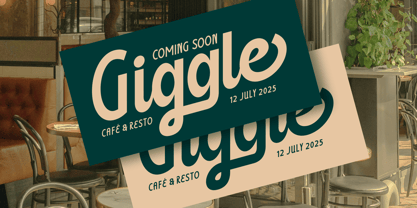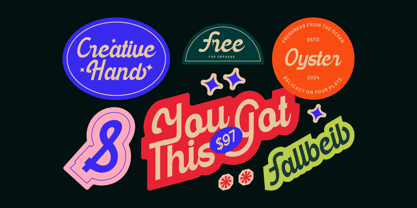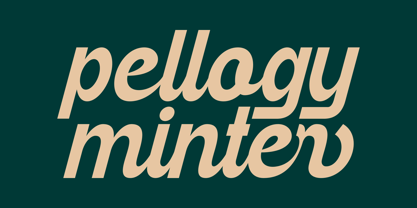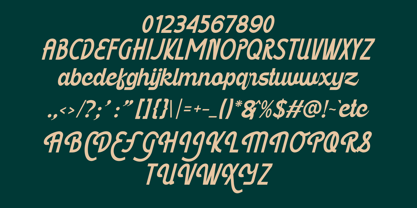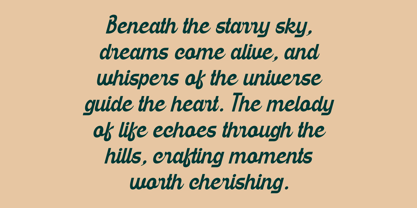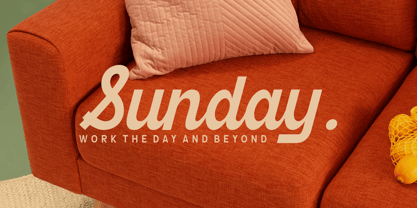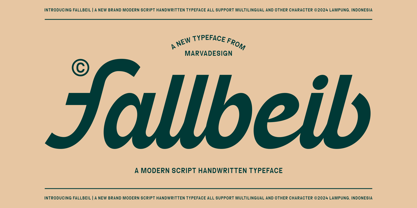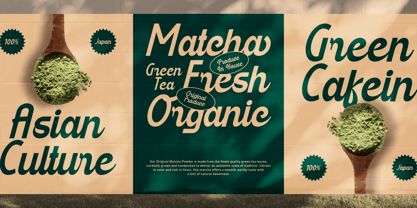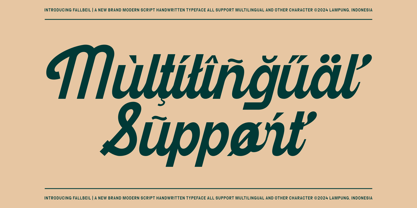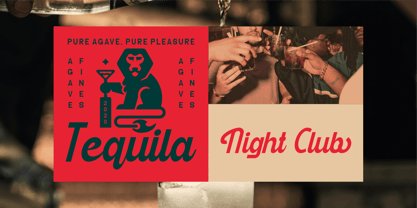
Fallbeil
by Marvadesign
The Fallbeil Font Family was designed by Febrie Setiawan and published by Marvadesign. Fallbeil contains 1 styles. More about this family
Introducing New Brand Typeface Fallbeil is a stylish Modern Script font that exudes strength and structured elegance. Its bold yet patterned design makes it stand out while maintaining a sense of sophistication. Featuring unique characters that set it apart, Fallbeil ensures instant recognition and memorability. Versatile and adaptable, this font is perfect for a variety of applications, including logos, typography, posters, apparel designs, and more. Whether for professional branding or creative projects, Fallbeil delivers a distinct visual impact that resonates across different mediums.
Designers: Febrie Setiawan
Foundry: Marvadesign